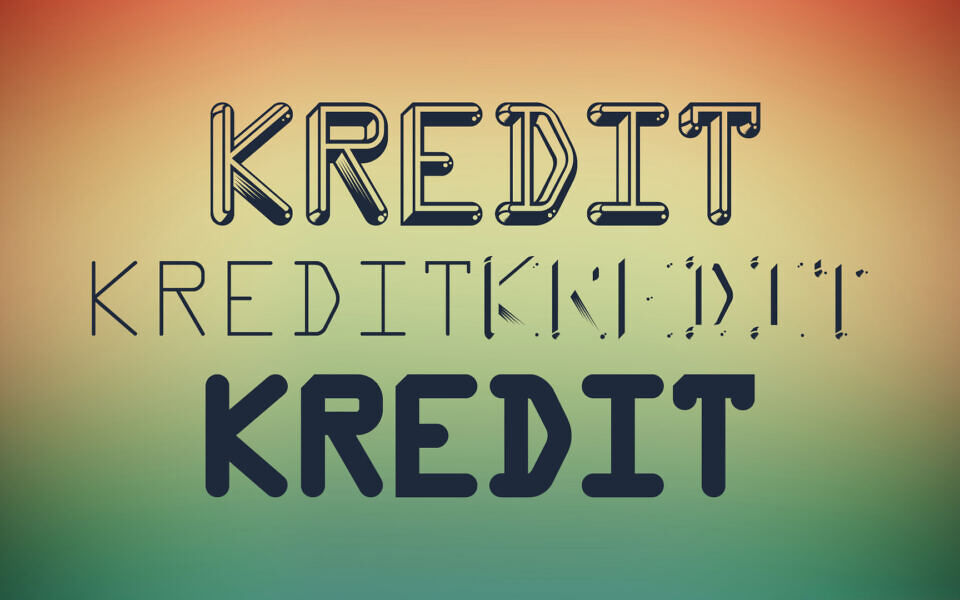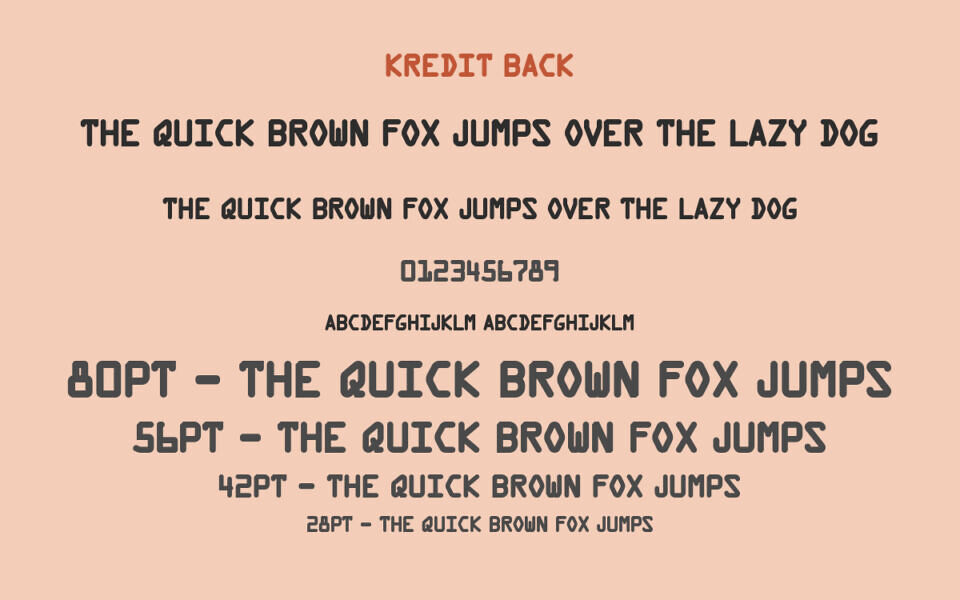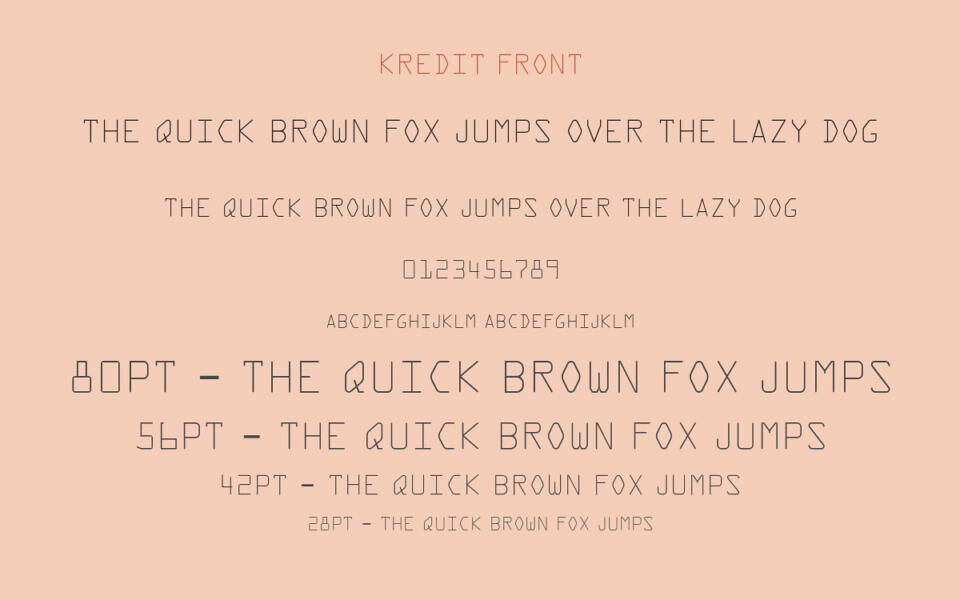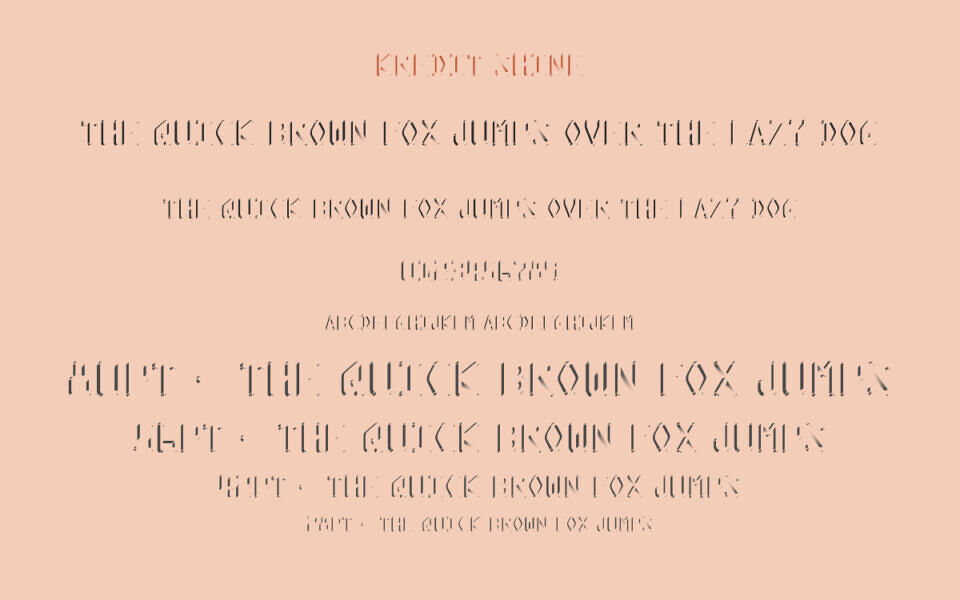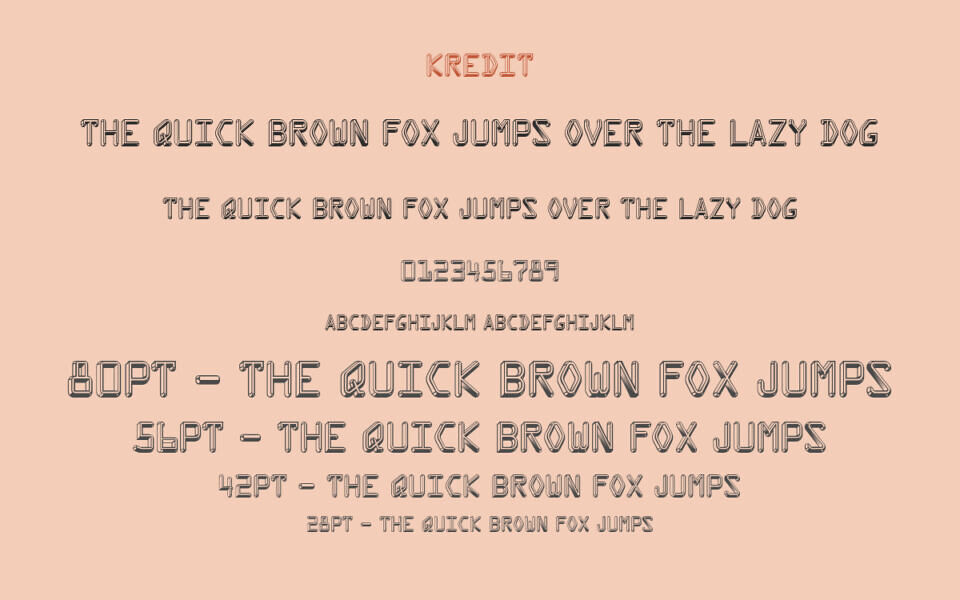
Kredit Font
Kredit is a bold, geometric playful display typeface radiating retro-futuristic energy. This modular font family features a clever layered system—comprising Front, Back, and Shine styles—allowing you to construct dynamic 3D metallic text effortlessly.
Characterized by heavy, angular strokes and a distinct techno-industrial aesthetic, Kredit is the ultimate choice for sci-fi headers, gaming logos, and arcade-style graphics.